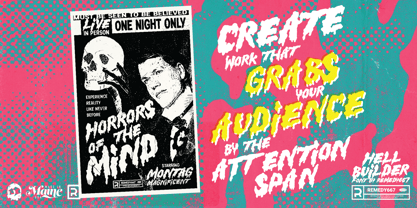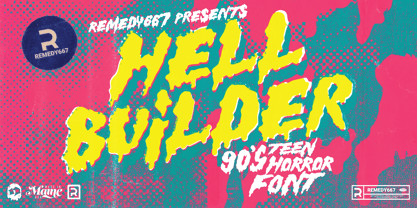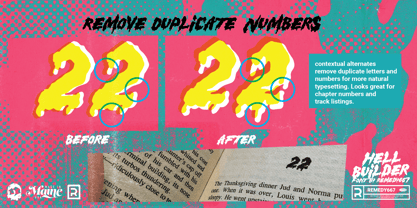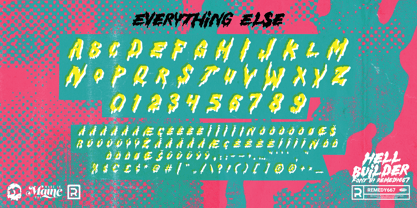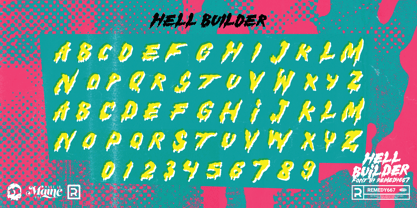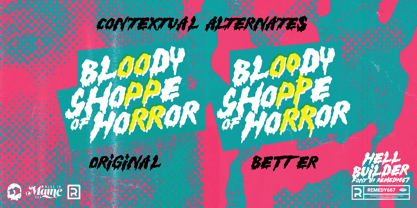
Hell Builder
by Remedy667
The Hell Builder Font Family was designed by Nick Polifroni and published by Remedy667. Hell Builder contains 1 styles.
Hell Builder. Ripped from the covers of 90’s Teen Horror Fiction, it’s bound to give you goosebumps… if not something much more terrifying. Hell Builder is handmade, in Maine, and perfect for t-shirts, posters, book covers, movies… any project where you want to kill it. The perfect typeface for any project you’re undertaking.